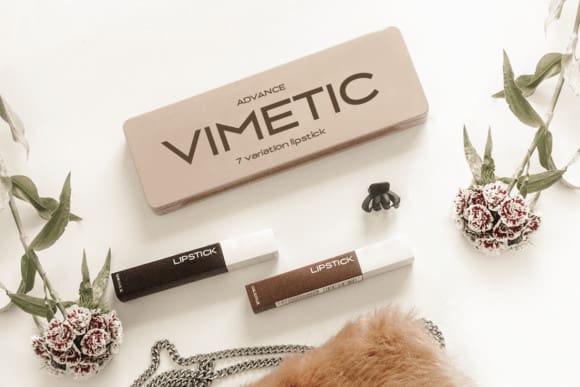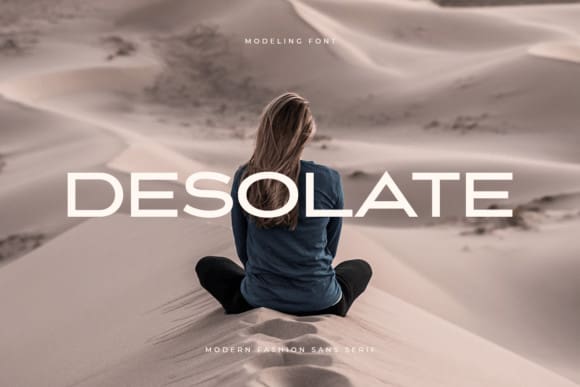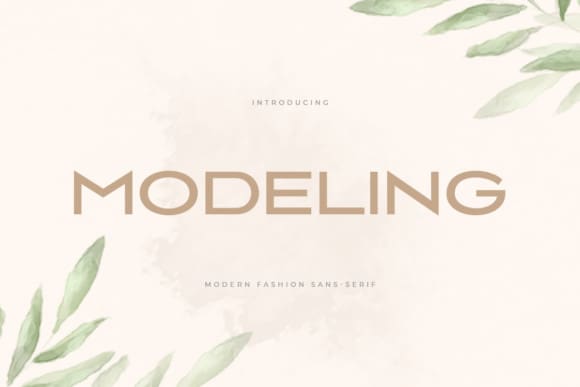
Modeling Font
Modeling Font is a refreshing and tidy sans-serif typeface that embodies simplicity and clarity. With clean lines and gentle curves, it emanates a sense of modernity and elegance. Ideal for various design projects, Modeling brings a polished and contemporary touch to any text or layout.